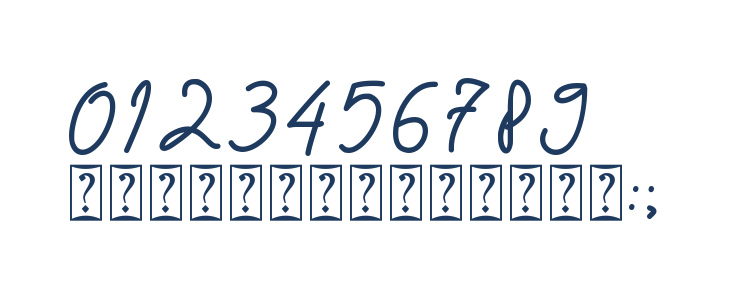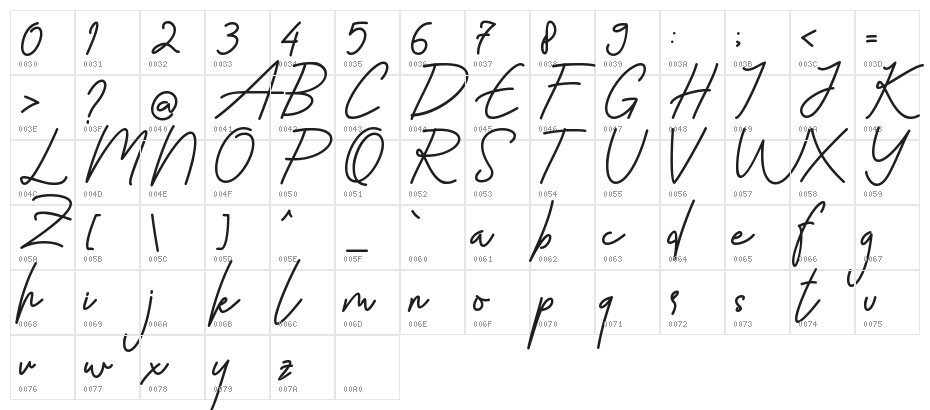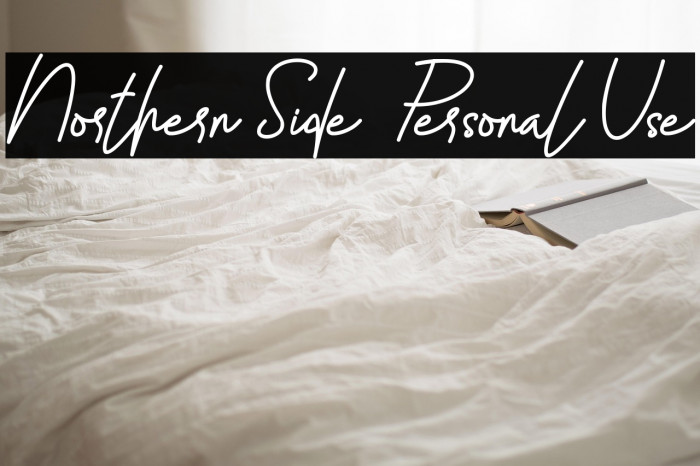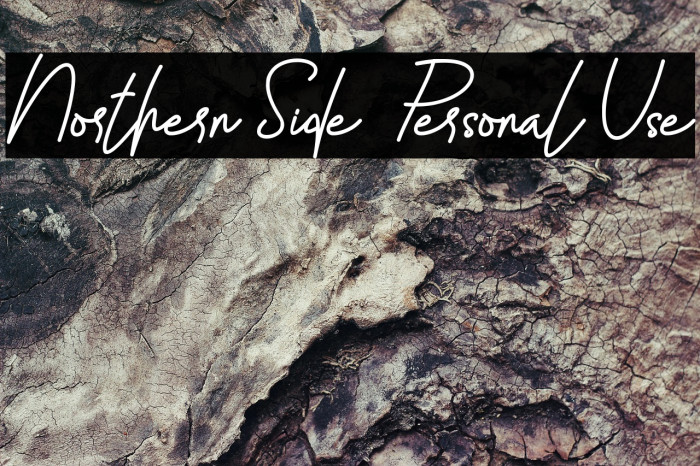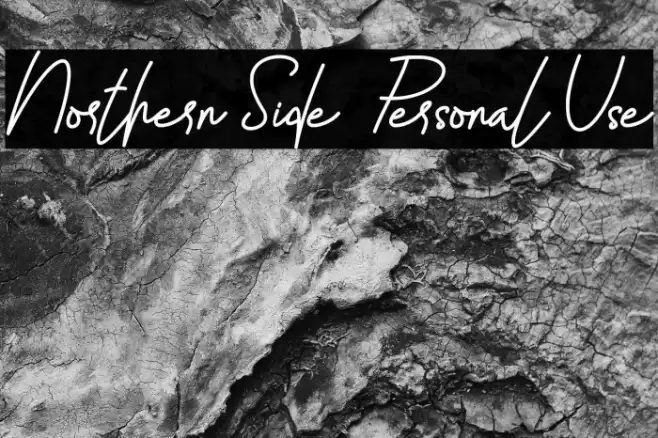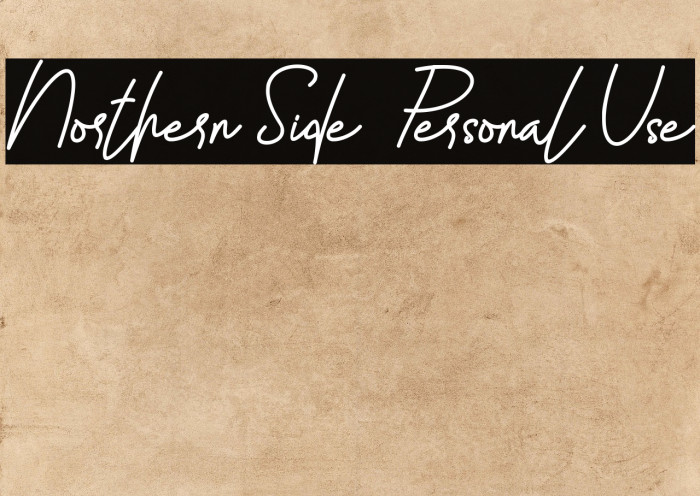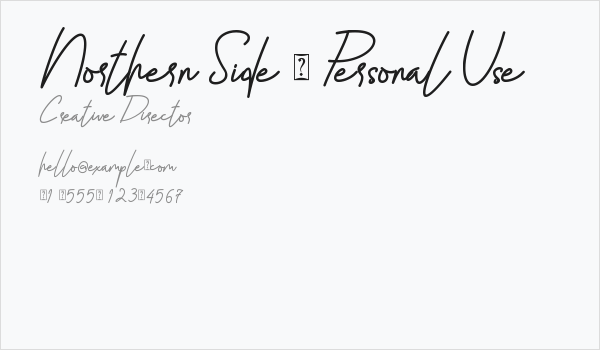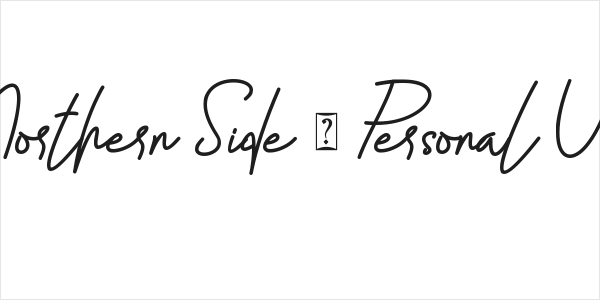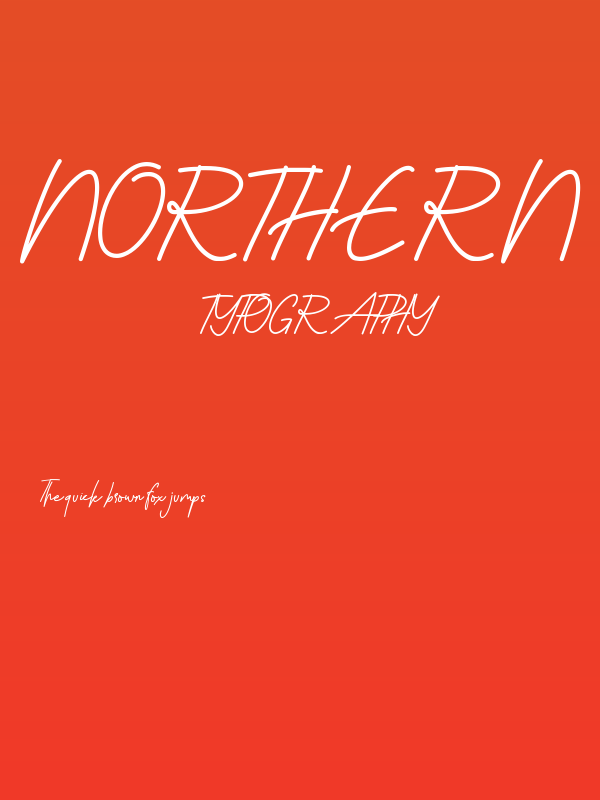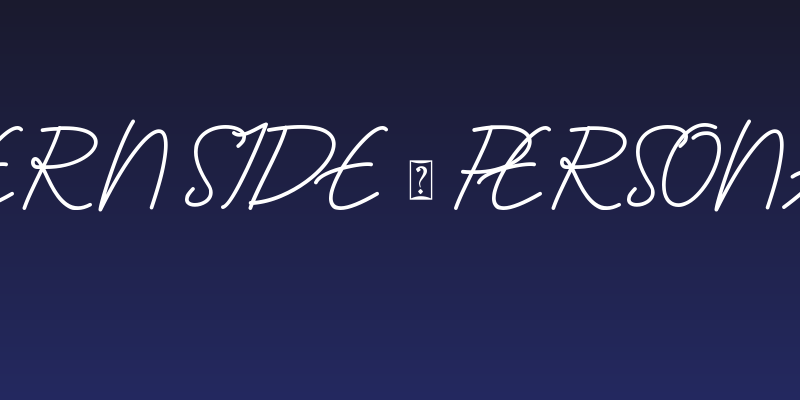
Northern Side - Personal Use Font
Northern Side - Personal Use Description
This font features a dynamic and fluid script style, characterized by its elegant and flowing letterforms. The uppercase letters are tall and slender, with a slight slant that adds a sense of motion and grace. The lowercase letters are more compact, maintaining the same fluidity and connectedness, which gives the text a handwritten feel. The numbers are consistent with the overall style, offering a cohesive look. Special characters are integrated seamlessly, enhancing the font's versatility. The strokes vary in thickness, providing a moderate contrast that adds depth and visual interest.